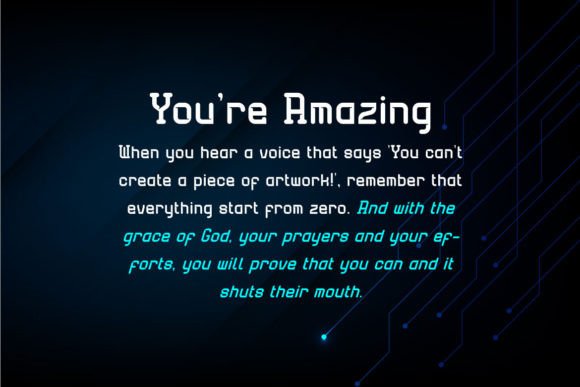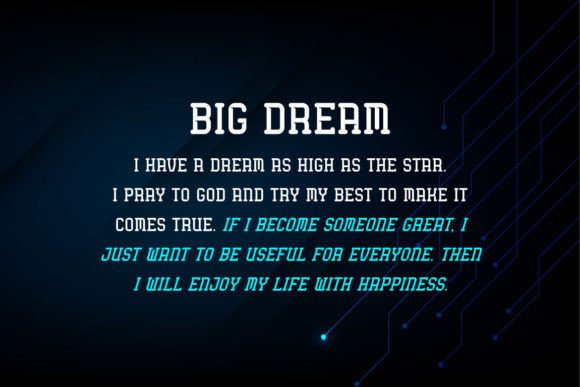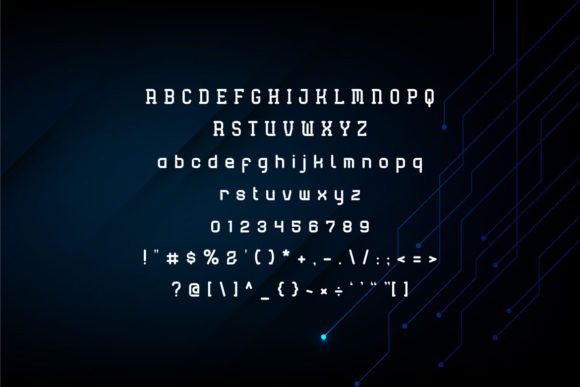
Introduction to Rytech Font
Rytech is a modern technology font.
Rytech can be used in any work such as flyers, book titles, advertisements, social media content, logos, and many more .